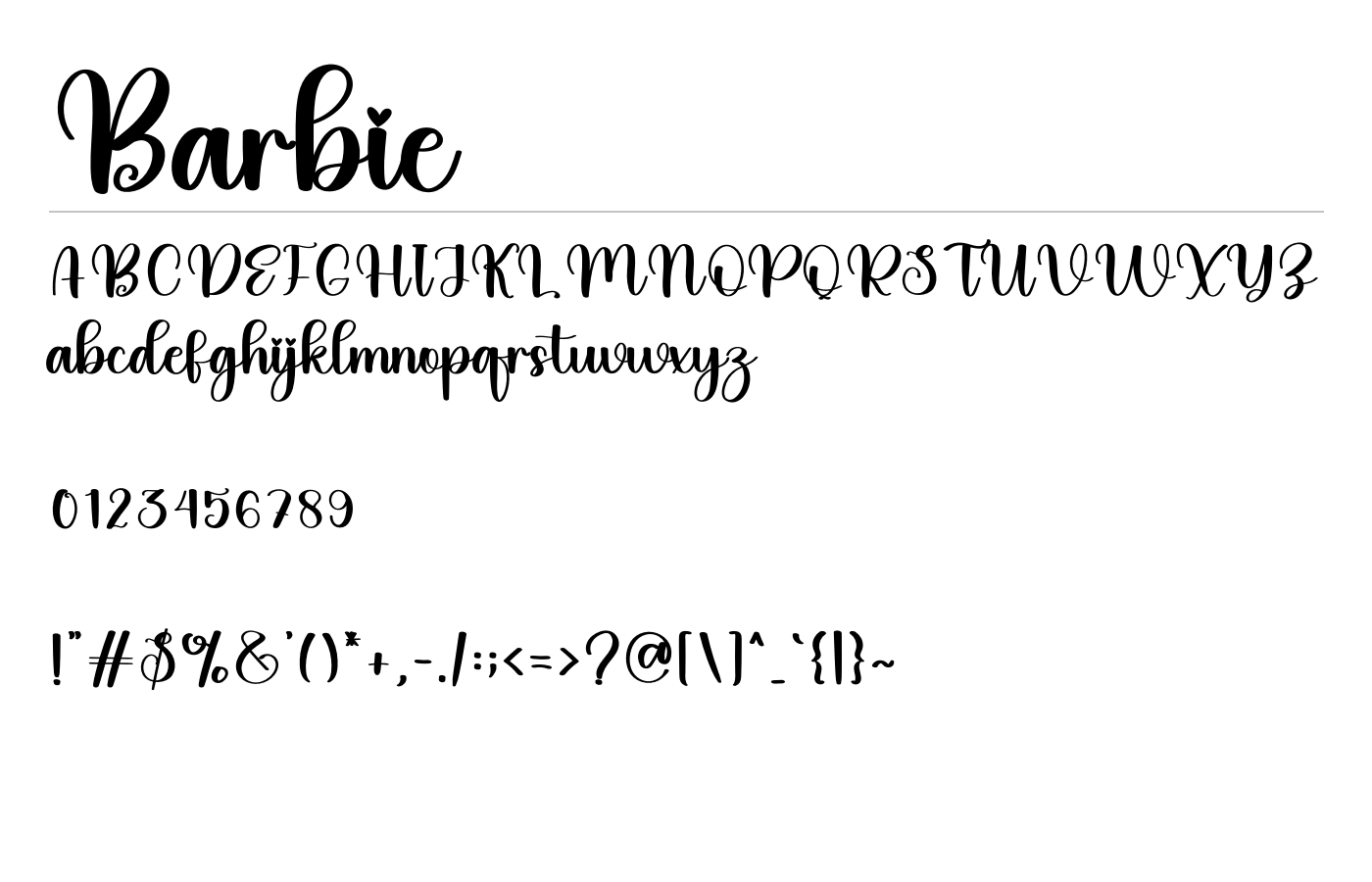
Barbie Font is a playful and elegant script typeface characterized by its smooth, flowing strokes and charming decorative details, like the heart-shaped dot on the lowercase "i." With its moderate weight and tall x-height, it balances readability and feminine flair, making it perfect for branding, invitations, and children’s products. This font’s whimsical yet polished style brings a joyful, approachable vibe that works beautifully in headlines and logos targeting a youthful or stylish audience.
Barbie Font